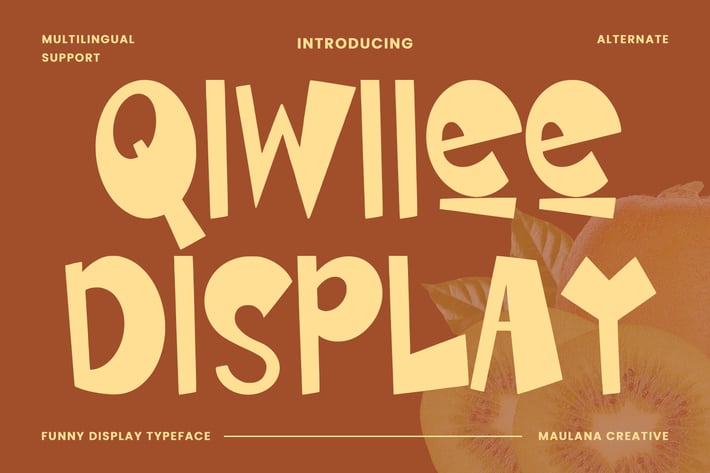
Qiwiiee Funny Display Typeface
Qiwiiee funny display typeface. Heavy stroke, fun character with a bit of ligatures. To give you an extra creative work. Qiwiiee funny display typeface support multilingual more than 100+ language. This font is good for logo design, Social media, Movie Titles, Books Titles, a short text even a long text letter and good for your secondary text font with script or serif. Make a stunning work with Qiwiiee funny display typeface.